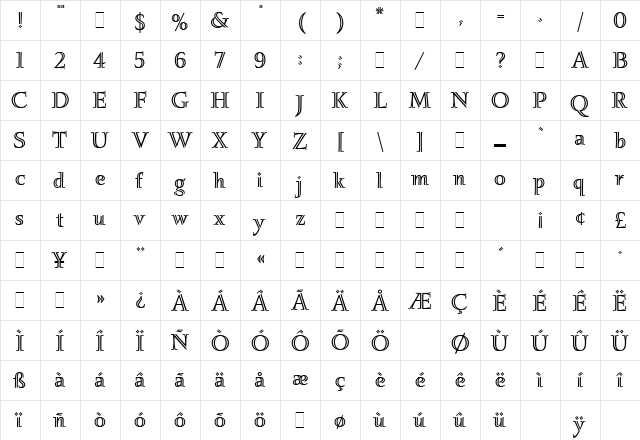
Ignatius LET Plain
Design Context for Ignatius LET Typeface
Ignatius LET takes a measured approach to typography — its balanced proportions and neutral character make it a reliable workhorse for both digital and print work.